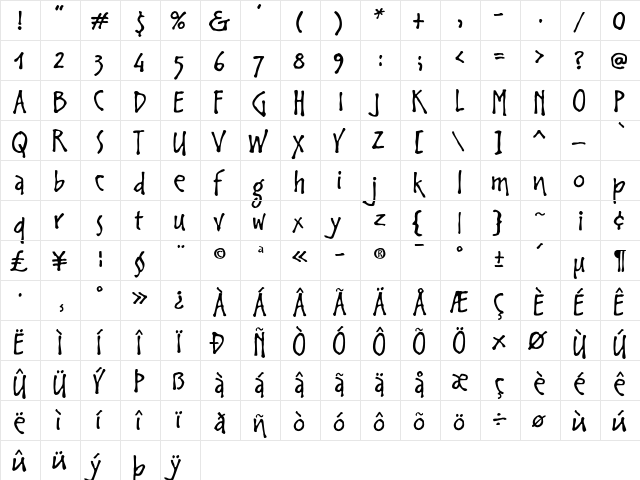
Cilantro Regular
Design Context for Cilantro Typeface
Cilantro is a composed and adaptable typeface that performs quietly and consistently across a wide range of design contexts.